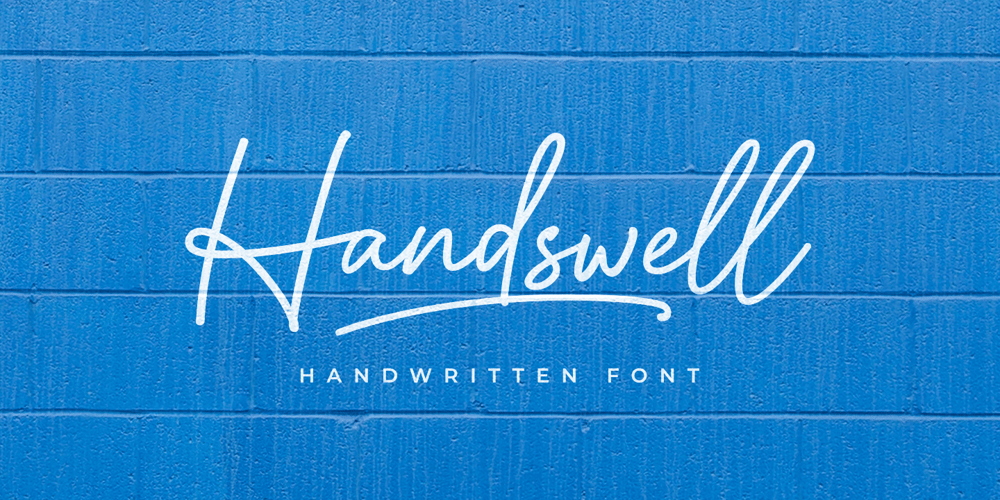
Handswell Font Family was designed by Hasan Udin and published by Ghuroba Studio. Handswell contains 1 styles and family package options. Handswell is a handwritten font with a natural and unique style that makes for an attractive and elegant design project. It is perfect for branding, business cards, clothing, quotes, logos, and more!